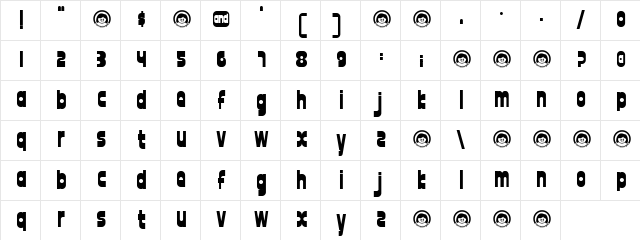
font twelve good Regular
Design Context for font twelve good
font twelve good is a composed and adaptable typeface that performs quietly and consistently across a wide range of design contexts.
Pro Tip: Use font twelve good in both headline and body roles to test its range before committing to a single application.